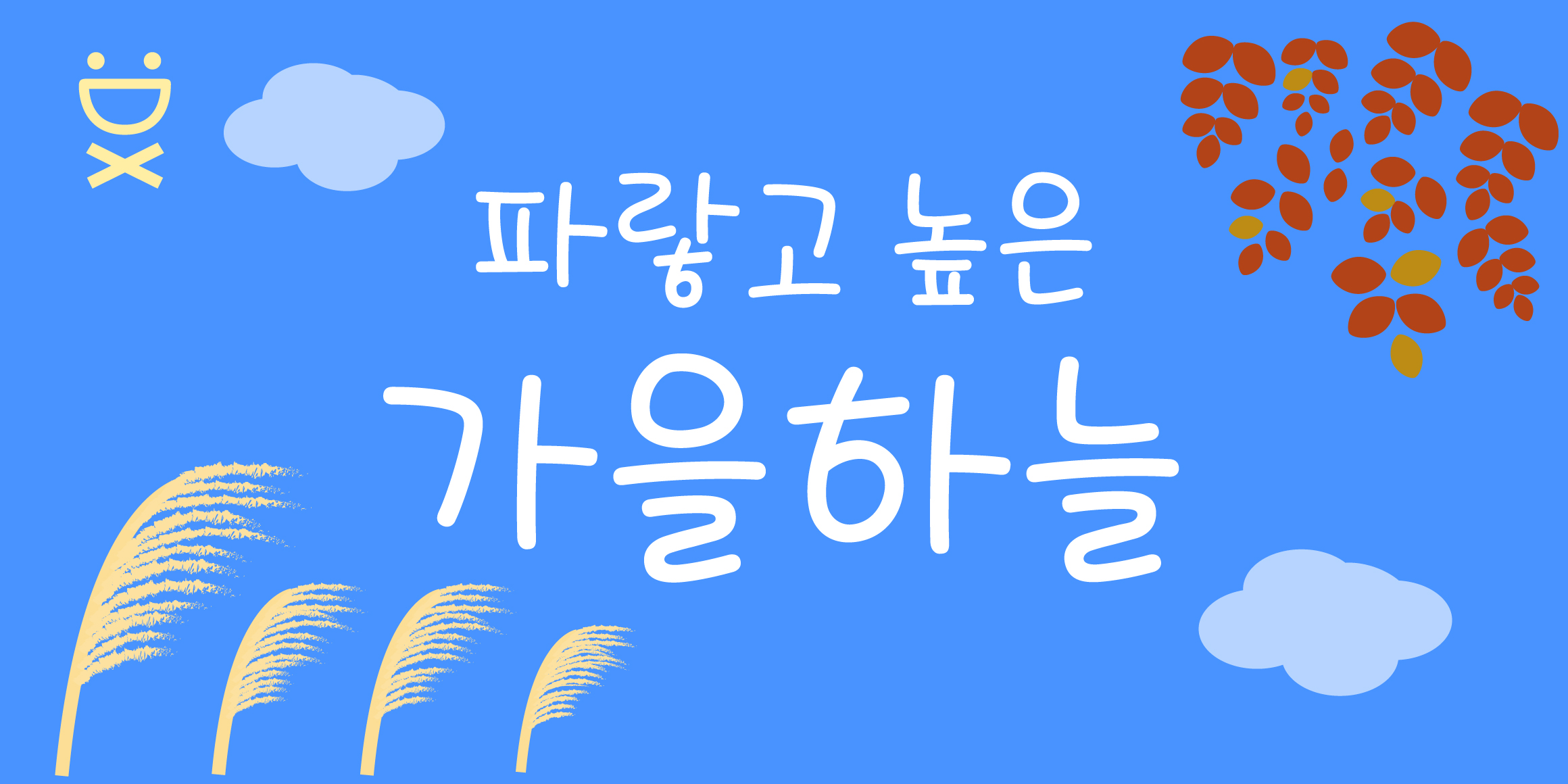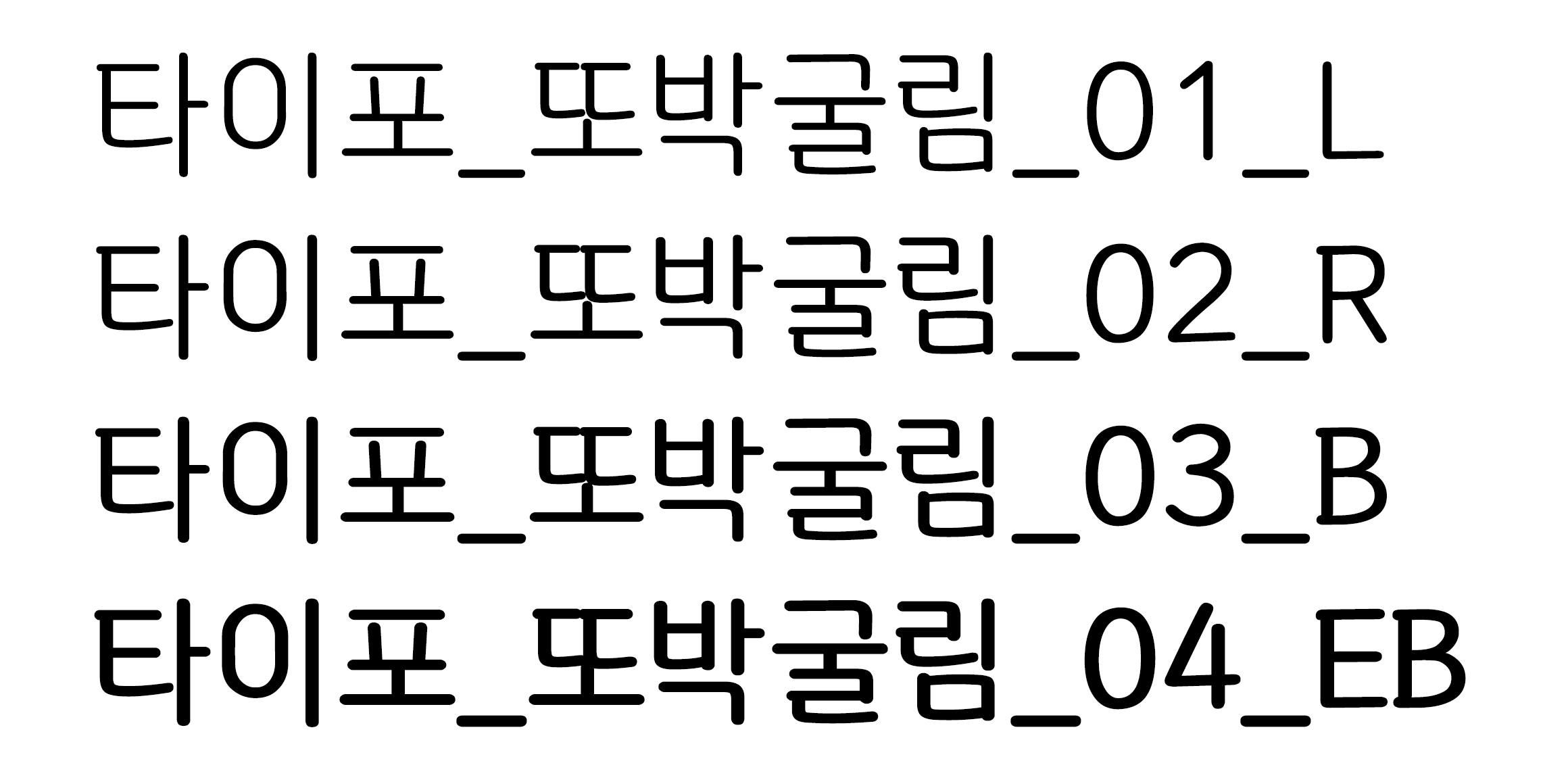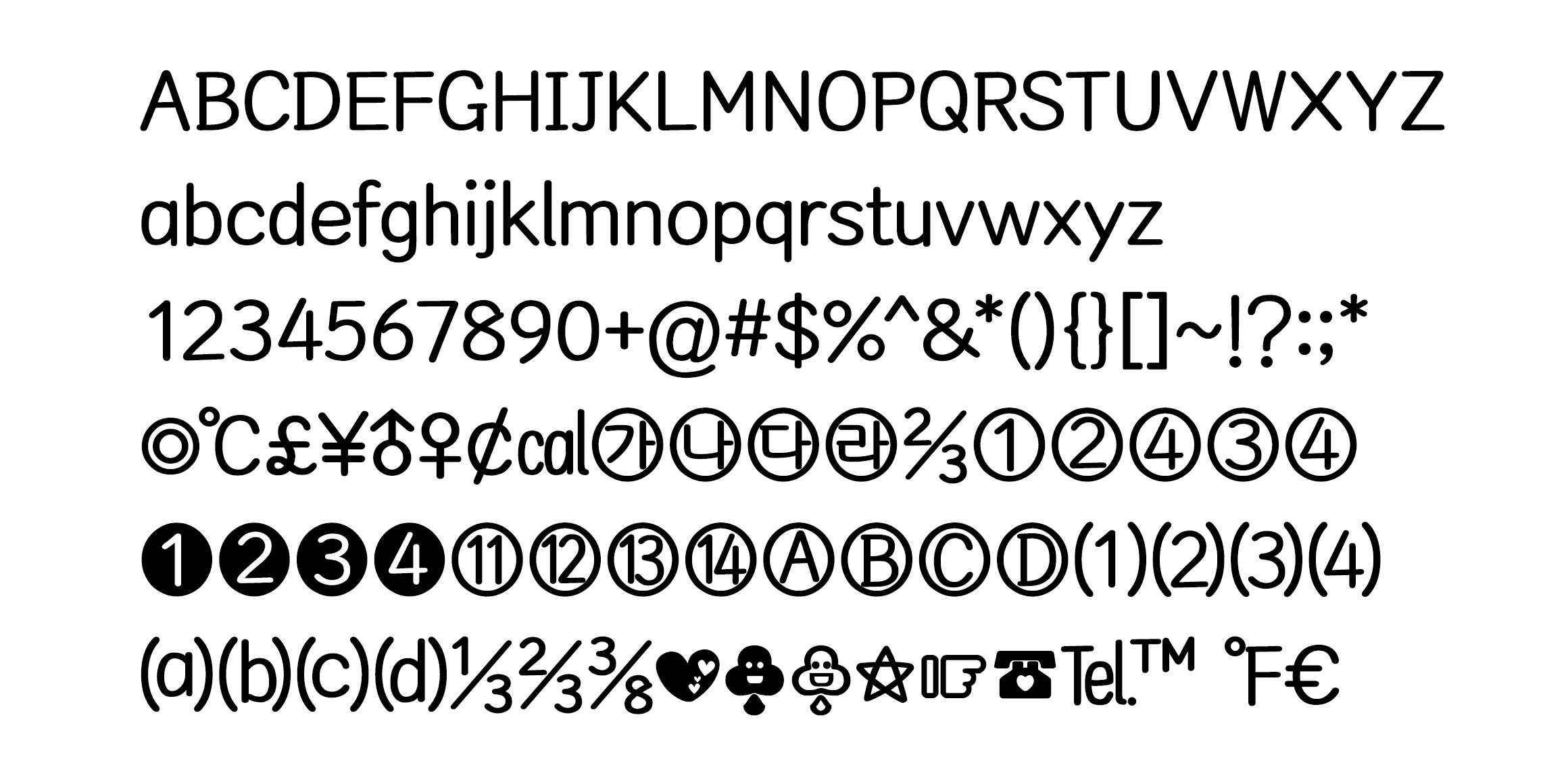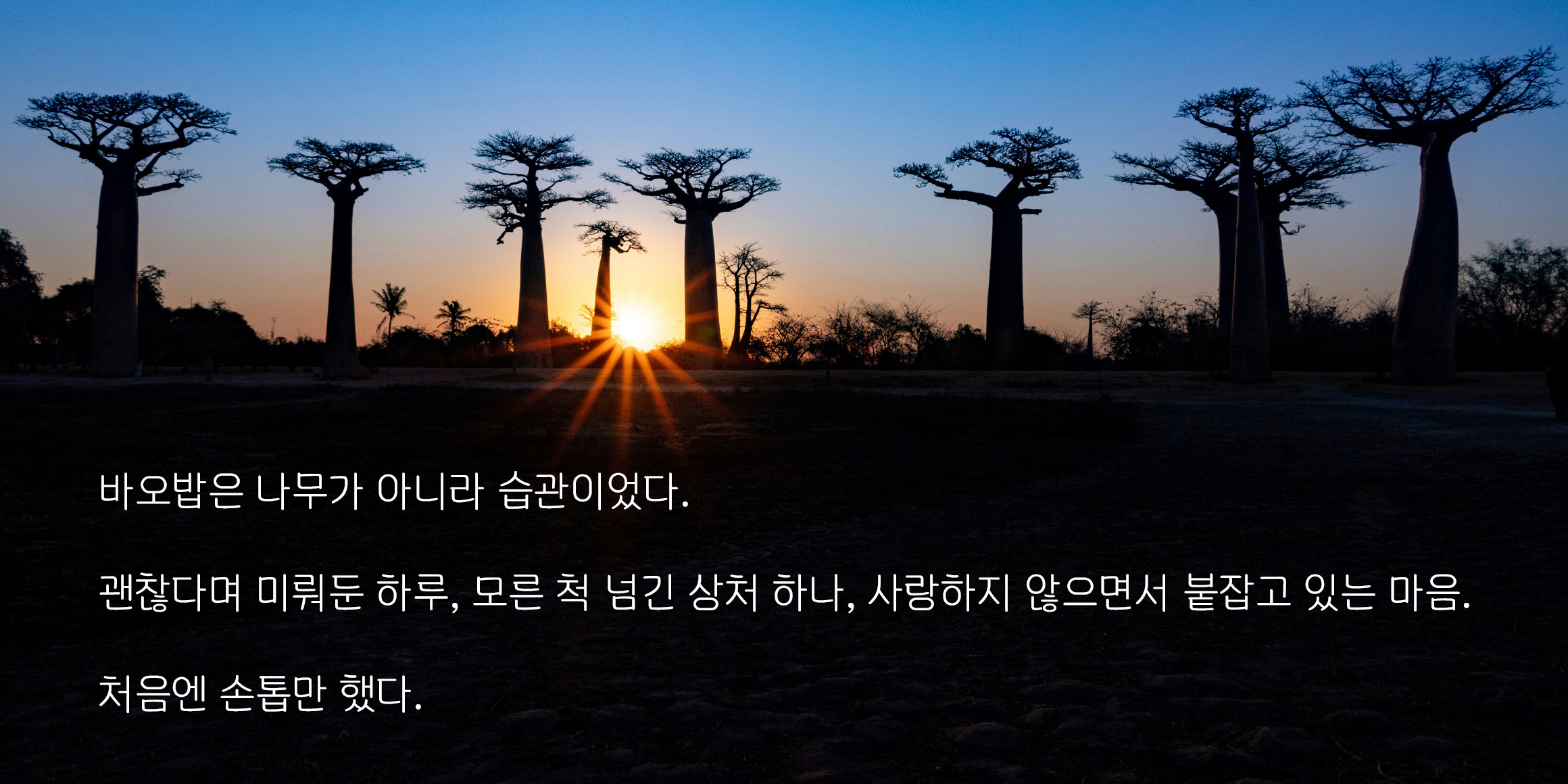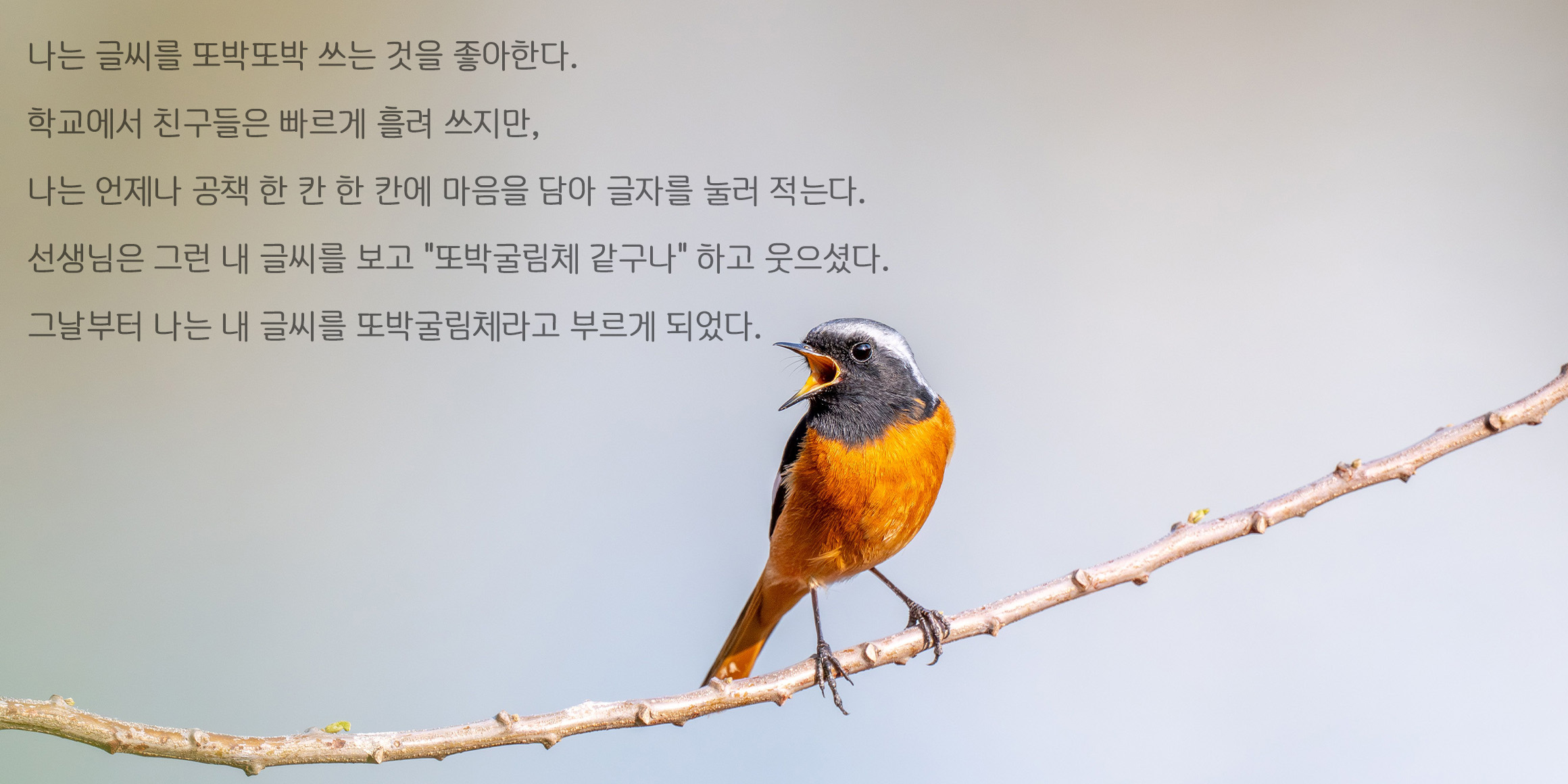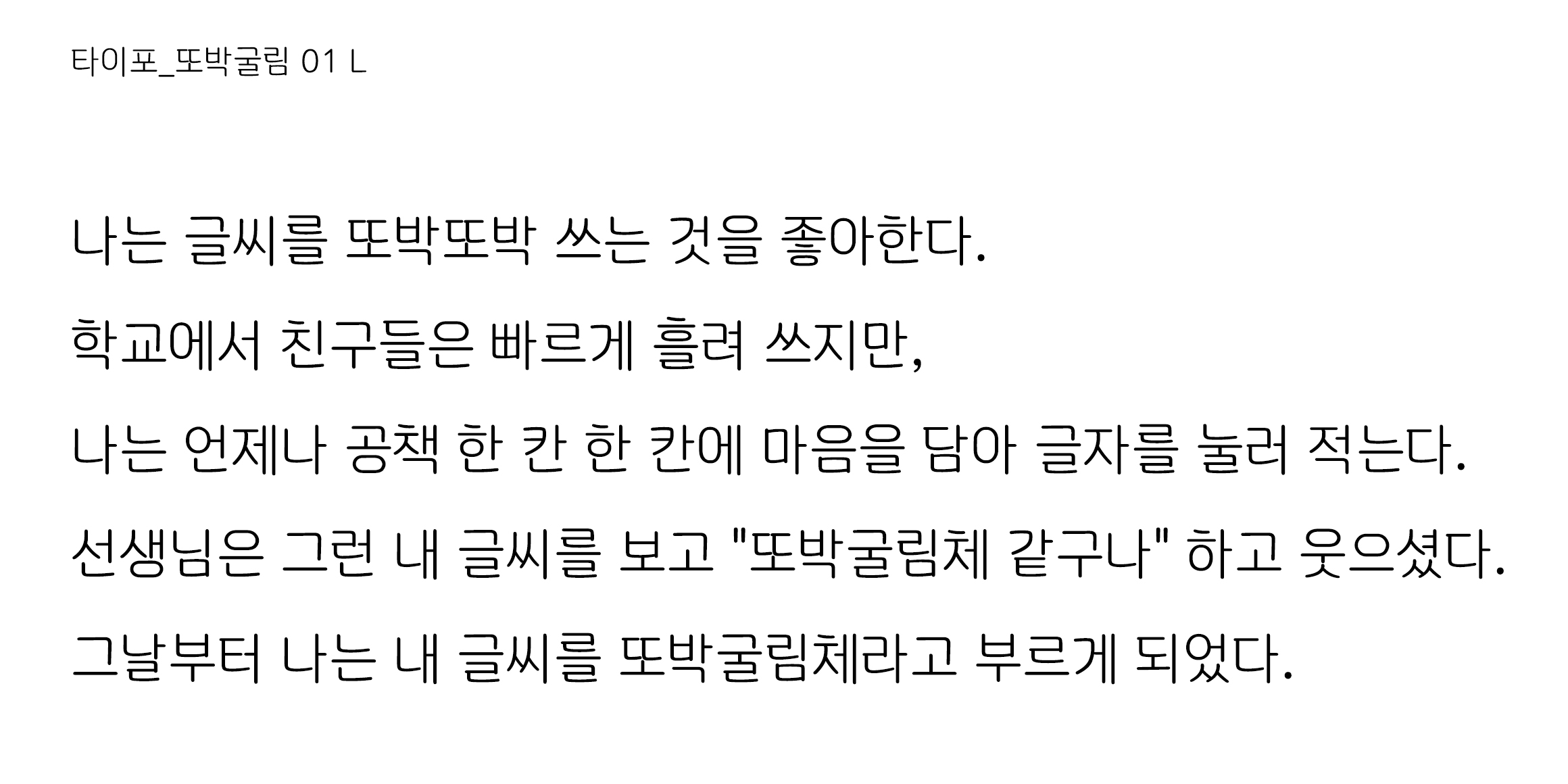
This font is particularly well-suited for video subtitles and YouTube content. Since subtitles are displayed on screen for only a short time, they need to be easy to read at a glance. Tobak Gulim's clear letterforms and uncomplicated design help viewers quickly recognize and understand the text. Its balanced and unobtrusive style also allows it to blend naturally with various genres, including vlogs, educational videos, informational content, and interview programs.
Key Features
Excellent readability, ideal for on-screen subtitles
Clean, neat, and professional appearance
Easy character recognition even at small sizes
Versatile and suitable for a wide variety of content
Useful for video editing, presentations, and thumbnail text
- 타이포_또박굴림 / Typo_ClearRound